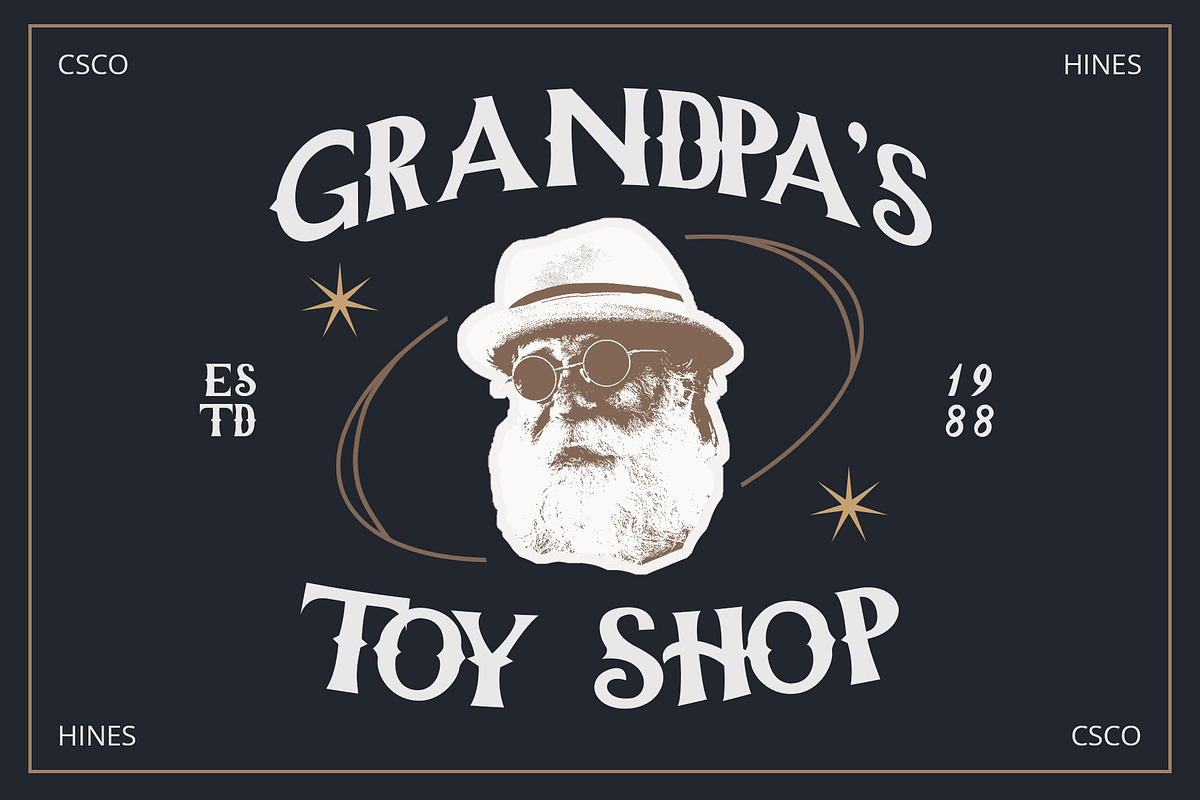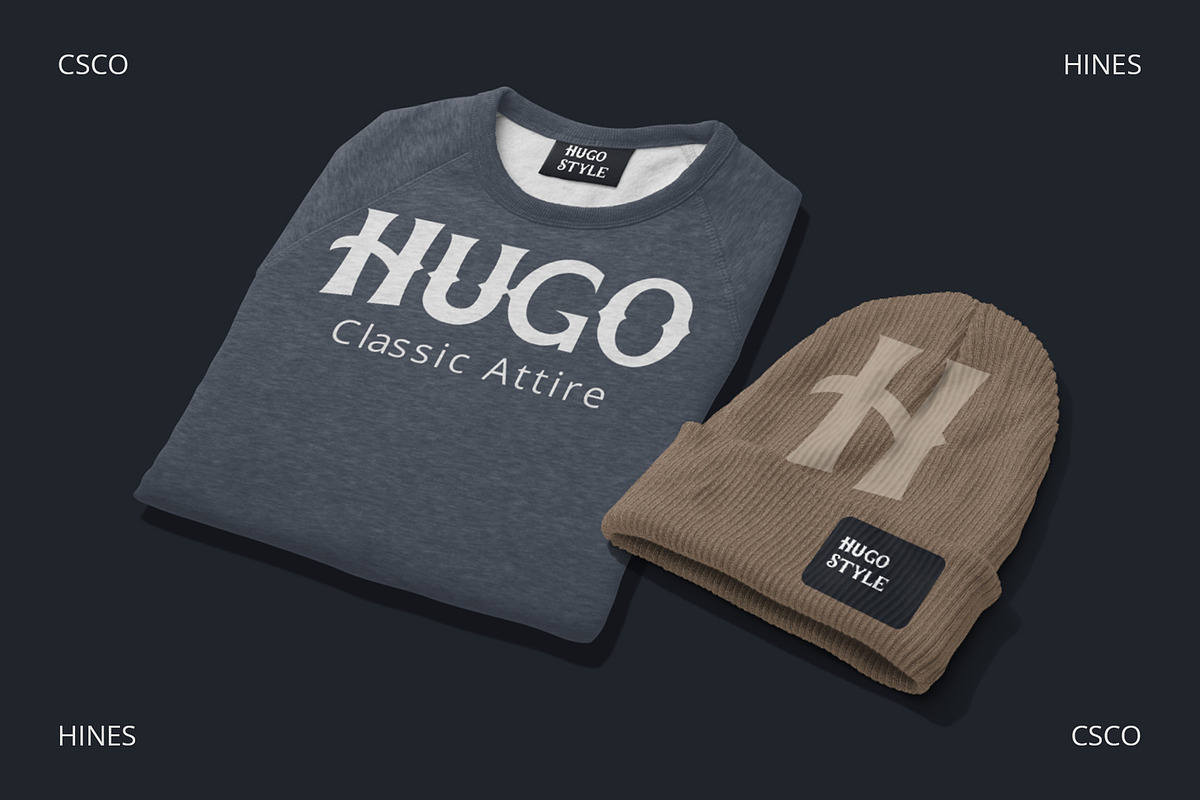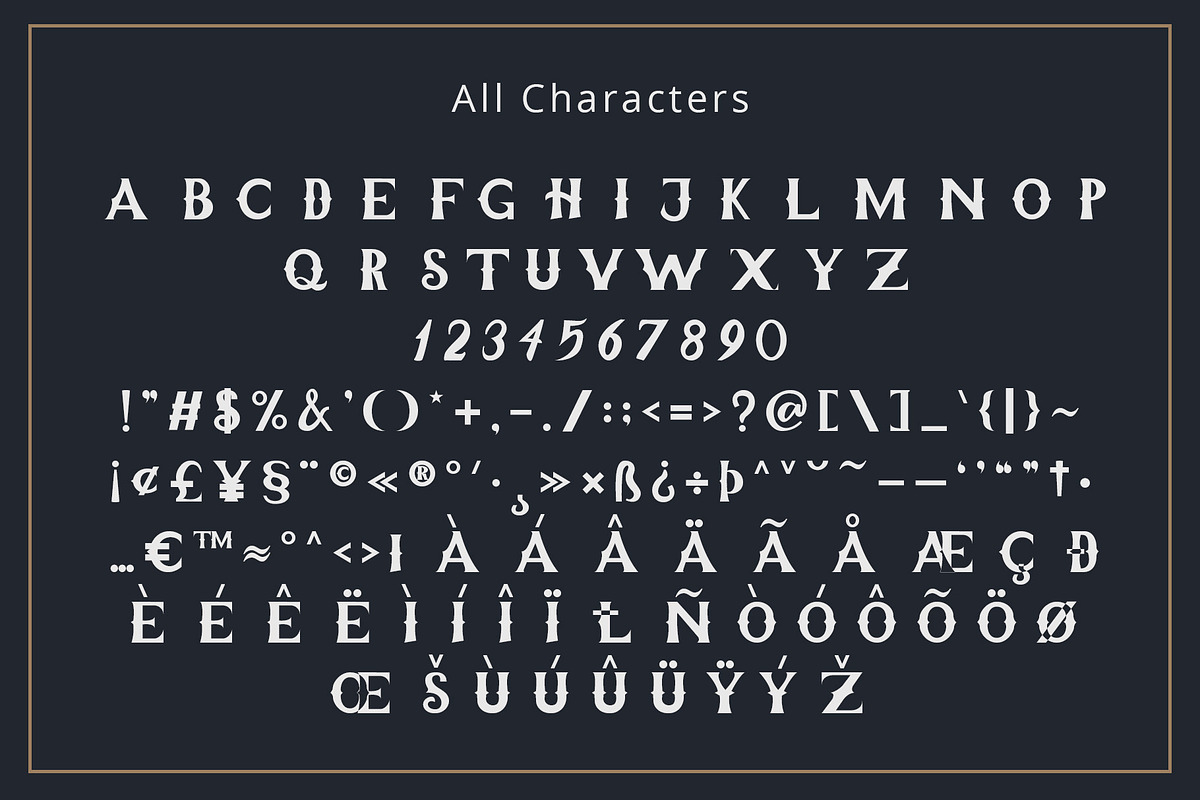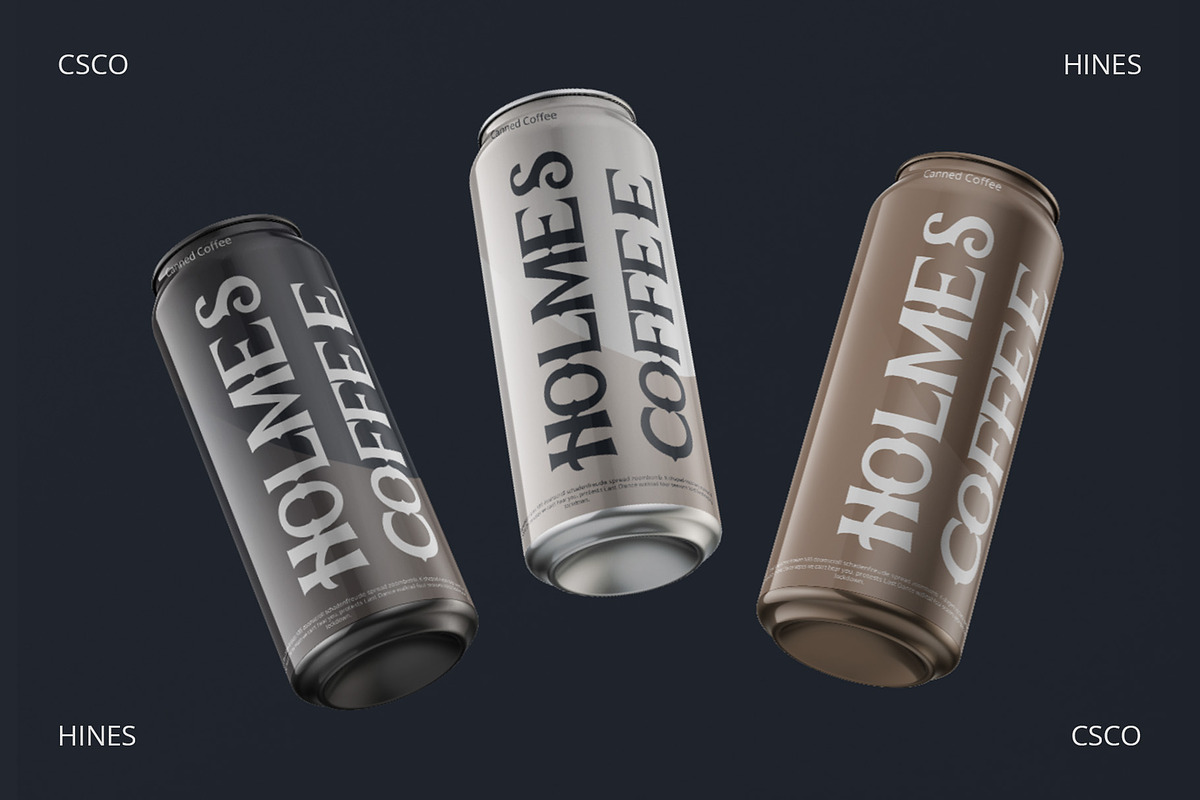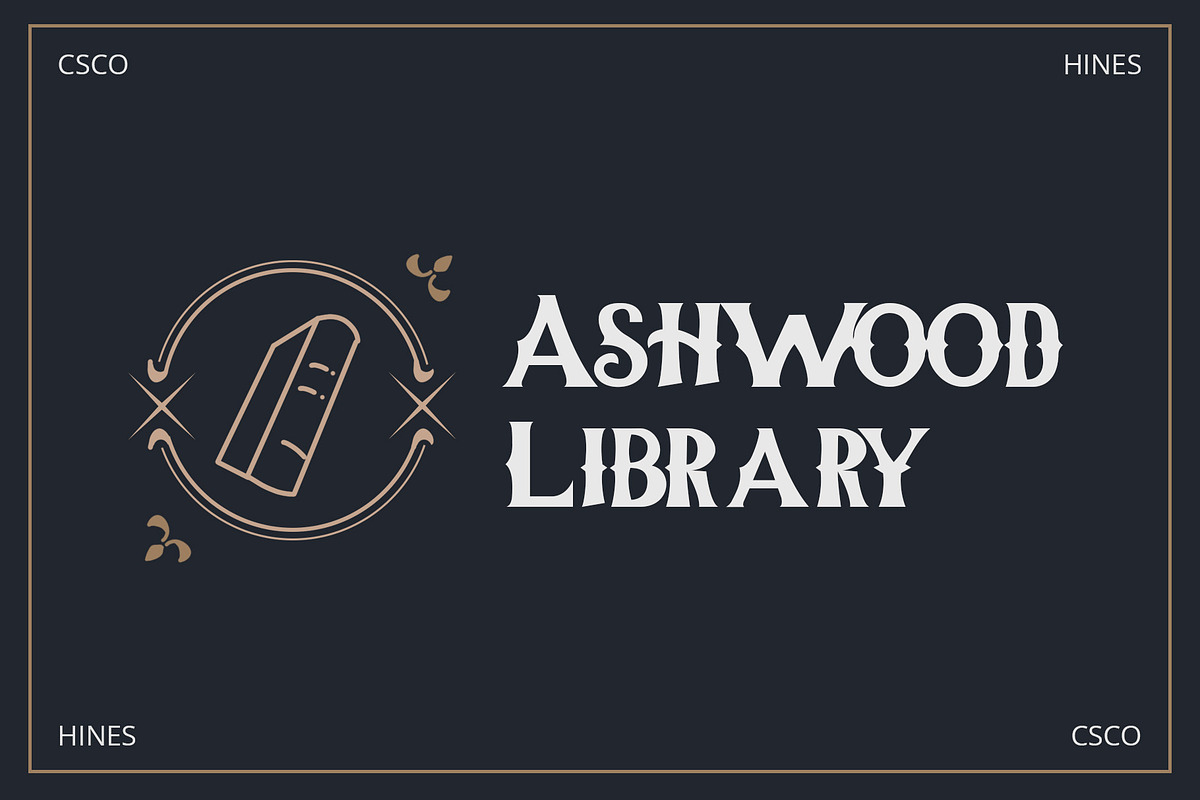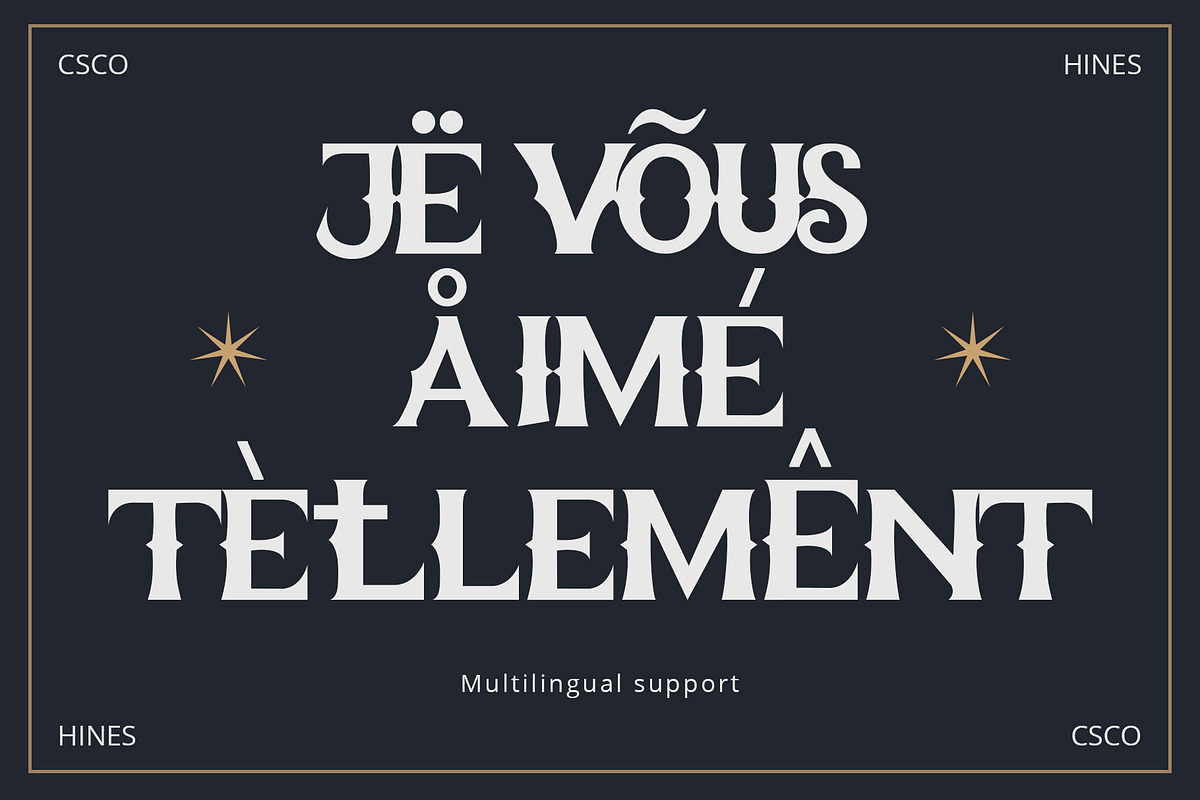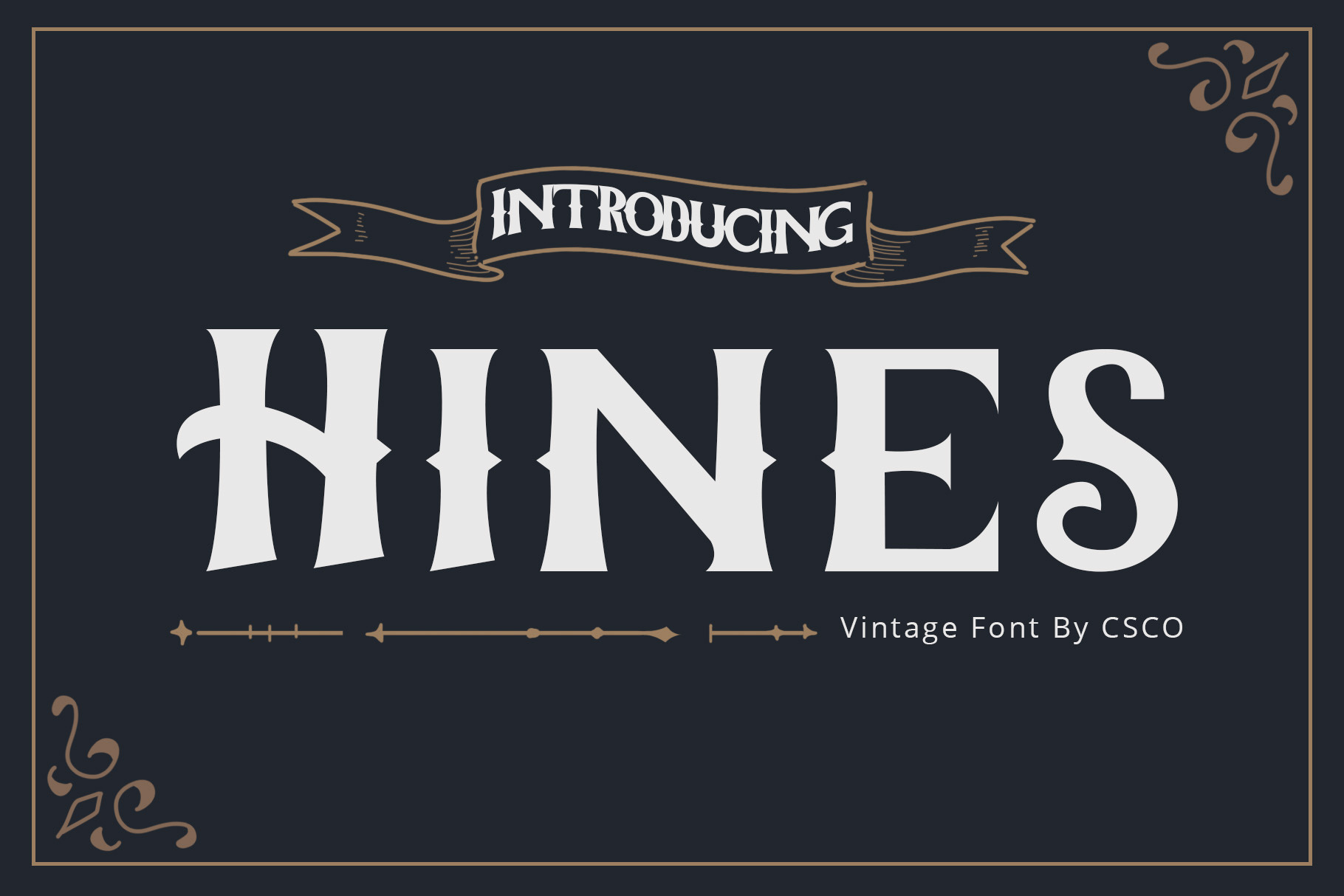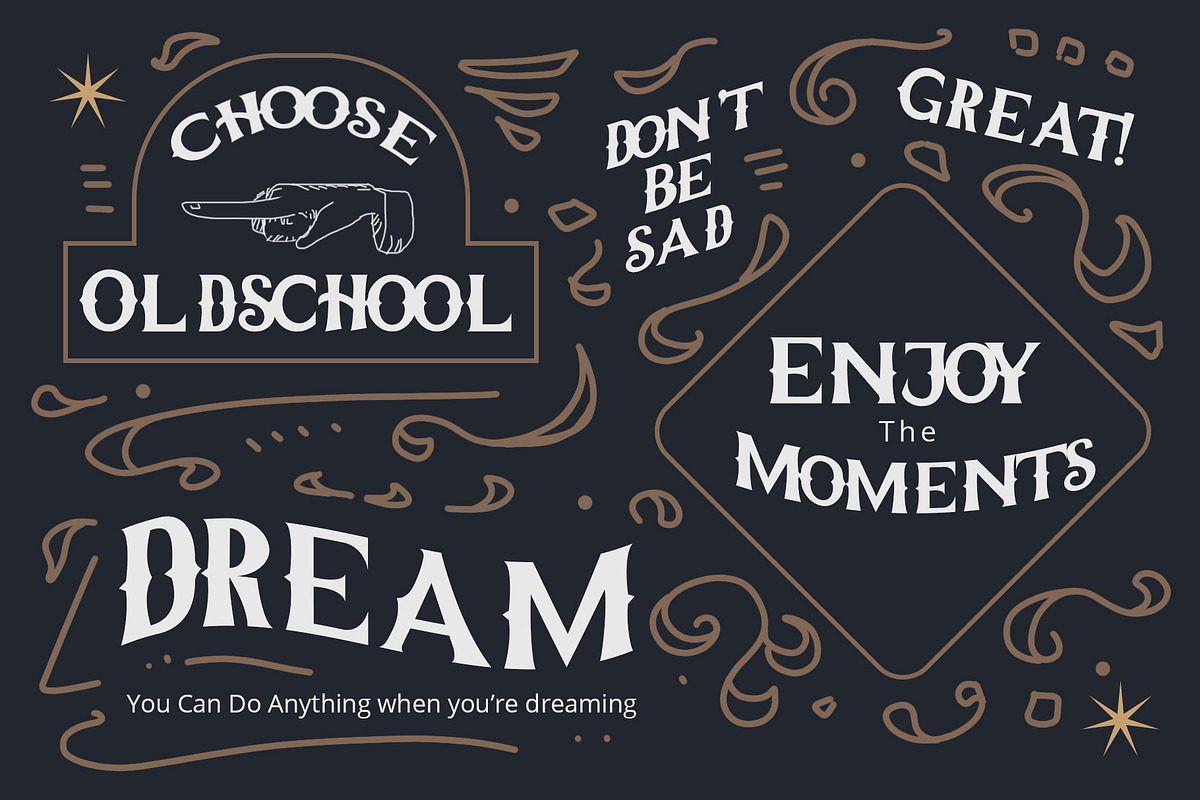
Hines – Vintage Font
Unveiling Hines – The Vintage Font
Masculine Nuance Firstly, Hines bursts forth with a strong, masculine nuance. Explicitly crafted, it resonates with the robust vibes of custom motor cultures and similar realms.
Vintage Charm Additionally, the font carries a vintage charm. Its classic serif details are infused with a tough, rugged aesthetic, making each letter captivating and rich with character.
Tailored for Customization Moreover, Hines is meticulously tailored. Suitable for custom motor artworks and more, it harmonizes perfectly with themes of strength, adventure, and craftsmanship, enhancing the project’s vibe.
Creative Consistency Furthermore, Hines ensures creative consistency. Its unique style maintains a cohesive look and feel across various contexts, fostering recognition and aesthetic appeal.
Simple Yet Powerful Also, its simplicity speaks volumes. Without being overly complicated, Hines manages to command attention and leave a memorable impression, ensuring that designs stand out.
In Conclusion In conclusion, Hines is more than a vintage serif font. It is a powerful tool that breathes masculinity and vintage charm into creative projects, ensuring they resonate with strength and originality.